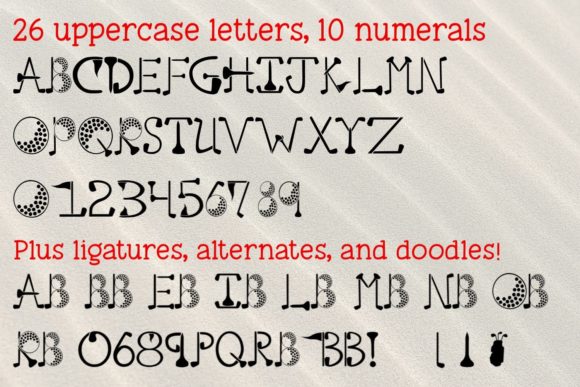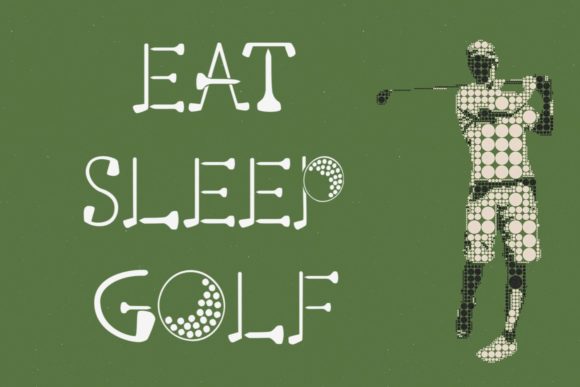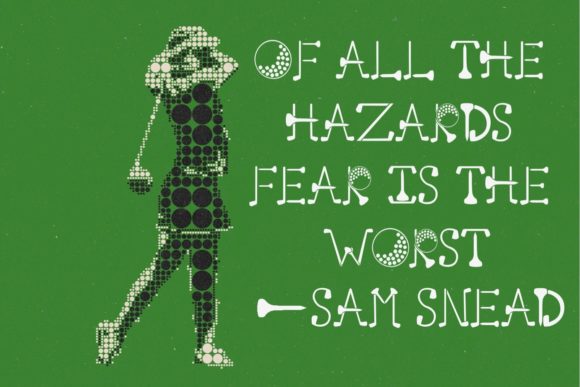
Introduction to Putting Green a Quirky Font for Golfers Font
As designers, we’ve all been there – staring at a blank page, waiting for that spark of inspiration to strike. For me, it was a late-night conversation with a fellow golfer that sparked the idea for a font that would bring a smile to every golfer’s face. And that’s exactly what we’re excited to introduce – Putting Green a Quirky Font for Golfers Font. This fun and quirky font is the perfect addition to any creative project, and we can’t wait to see what you create with it!
Whether you’re a professional designer or just starting out, this font is a valuable resource that will elevate your work and bring a touch of personality to your designs. With its transparent background and high-quality design, you can rest assured that your projects will look their best. And the best part? It’s available for free download, making it the perfect design resource for anyone looking to add some creativity to their work.
Key Features of Putting Green a Quirky Font for Golfers Font
- Unique Design: This font features a quirky and playful design, perfect for golf-themed creative projects.
- High-Quality Graphics: The font is designed with high-quality graphics, making it ideal for use in various design resources.
- Transparent Background: The font comes with a transparent background, allowing for easy integration into various design elements.
- Size and Resolution: The font is available in a single size, but can be scaled to fit various design needs, with a recommended resolution of 300 DPI for high-quality output.
- Creative Freedom: This font is perfect for designers who want to add a unique touch to their golf-themed creative projects, from posters to invitations and more.
Honest Review: Putting Green a Quirky Font for Golfers Font
I recently stumbled upon the “Putting Green a Quirky Font for Golfers Font” and I must say, it’s a unique addition to any golf-themed project. This quirky font is perfect for creatives looking to add a touch of whimsy to their designs.
Here are a few things that work well about this font:
- ✨ Its transparent background makes it easy to layer over other design elements.
- ✨ The high-quality design ensures that it looks great in both digital and print formats.
- ⚠️ The font may not be suitable for professional or formal golf-related projects, as it has a playful tone.
- ⚠️ It’s not as versatile as some other fonts, which may limit its use in certain design contexts.
Overall, I think “Putting Green a Quirky Font for Golfers Font” is a fun and creative design resource that’s perfect for personal projects or those looking to add a touch of humor to their designs. Just keep in mind its limitations and use it accordingly.
How to Use Putting Green a Quirky Font for Golfers Font
Putting Green a Quirky Font for Golfers Font is a unique and creative design resource perfect for golf enthusiasts. This high-quality font is ideal for adding a personal touch to your golf-themed projects.
Here are some tips to help you get the most out of Putting Green a Quirky Font for Golfers Font:
Use it for golf-themed posters, flyers, and brochures
Create custom golf ball designs and logos
Add a personal touch to your golf-themed social media graphics
This font is perfect for:
Golf course branding and marketing
Golf-themed merchandise and apparel
Golf tournament and event promotions
Alternatives to Putting Green a Quirky Font for Golfers Font
Par for the Course
Par for the Course is a high-quality font perfect for golf-themed projects. It features a clean and elegant design that is easy to read. Use it for your next golf tournament brochure, golf course website, or golf-themed apparel. Par for the Course is a great alternative to Putting Green a Quirky Font for Golfers Font as it offers a more professional look without sacrificing the golf theme.
Green Jacket
Green Jacket is a free download font that features a unique and quirky design. It’s perfect for creative projects that require a touch of personality. Use it for your next golf-themed poster, golf course flyer, or golf-themed social media graphics. Green Jacket is a great alternative to Putting Green a Quirky Font for Golfers Font as it offers a more modern and trendy look.